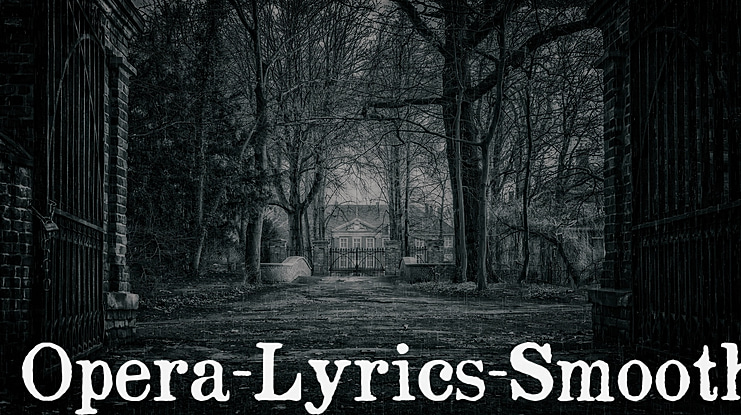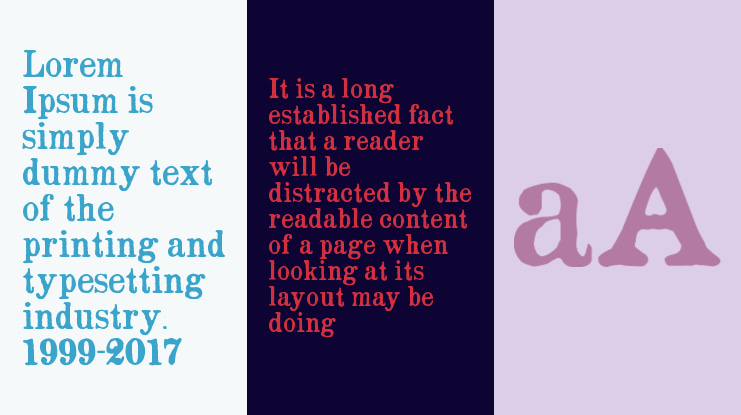
Opera-Lyrics-Smooth Font
Opera lyrics font, developed from 19th century opera scores. It uses tight spacing, retains a broken (hand-stamped on engraver plates) character, and is bold enough for any classic musical score. (As of 3/2010, only the Roman version is available.)